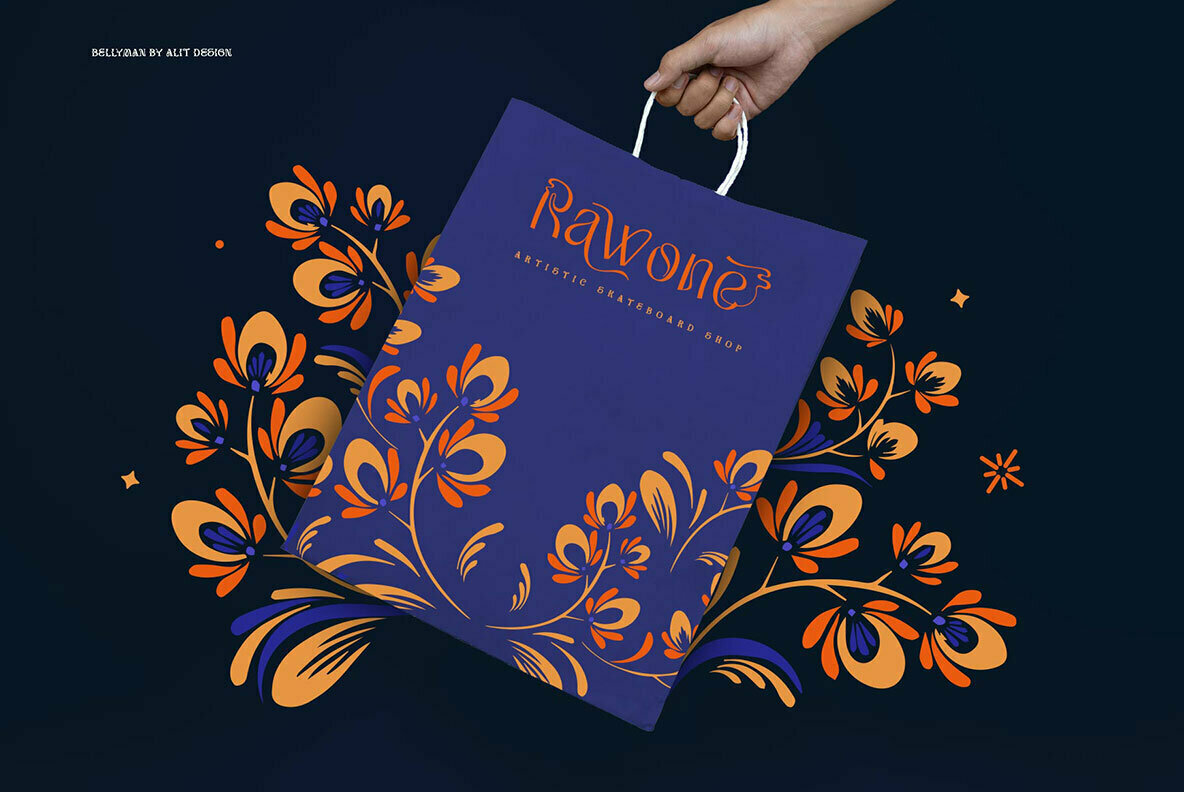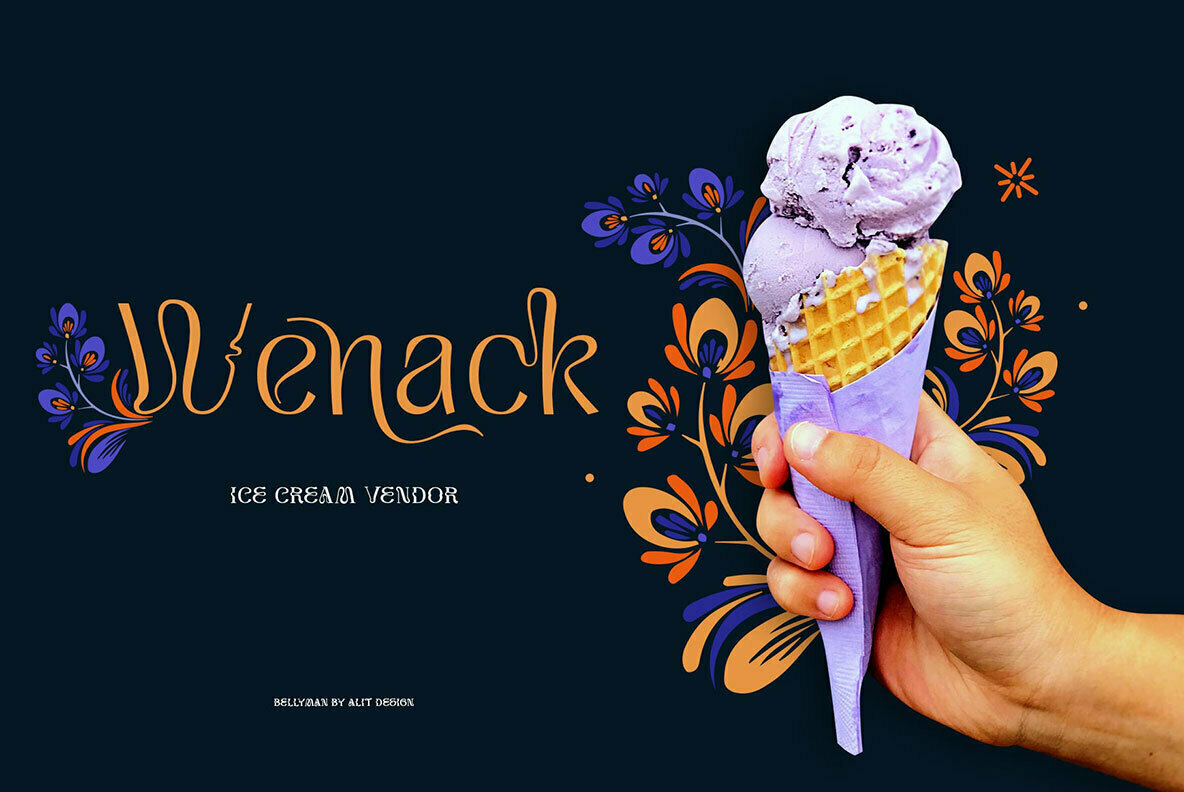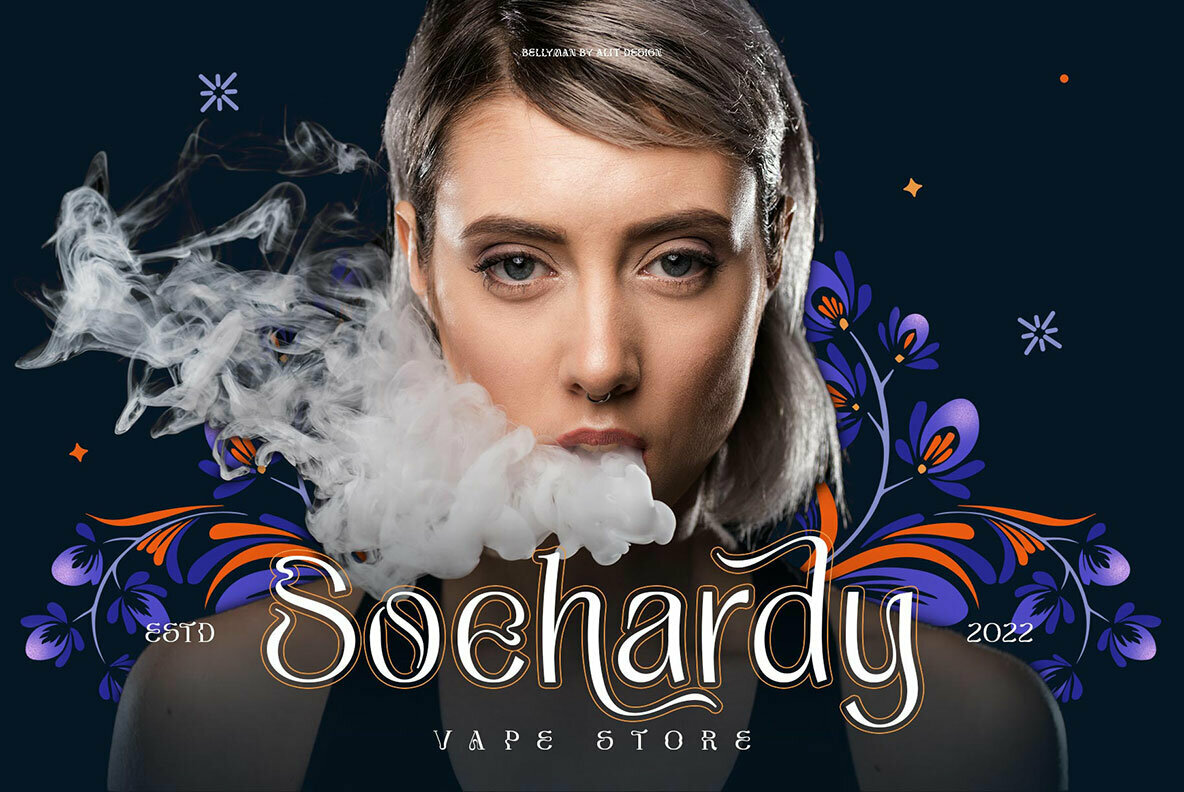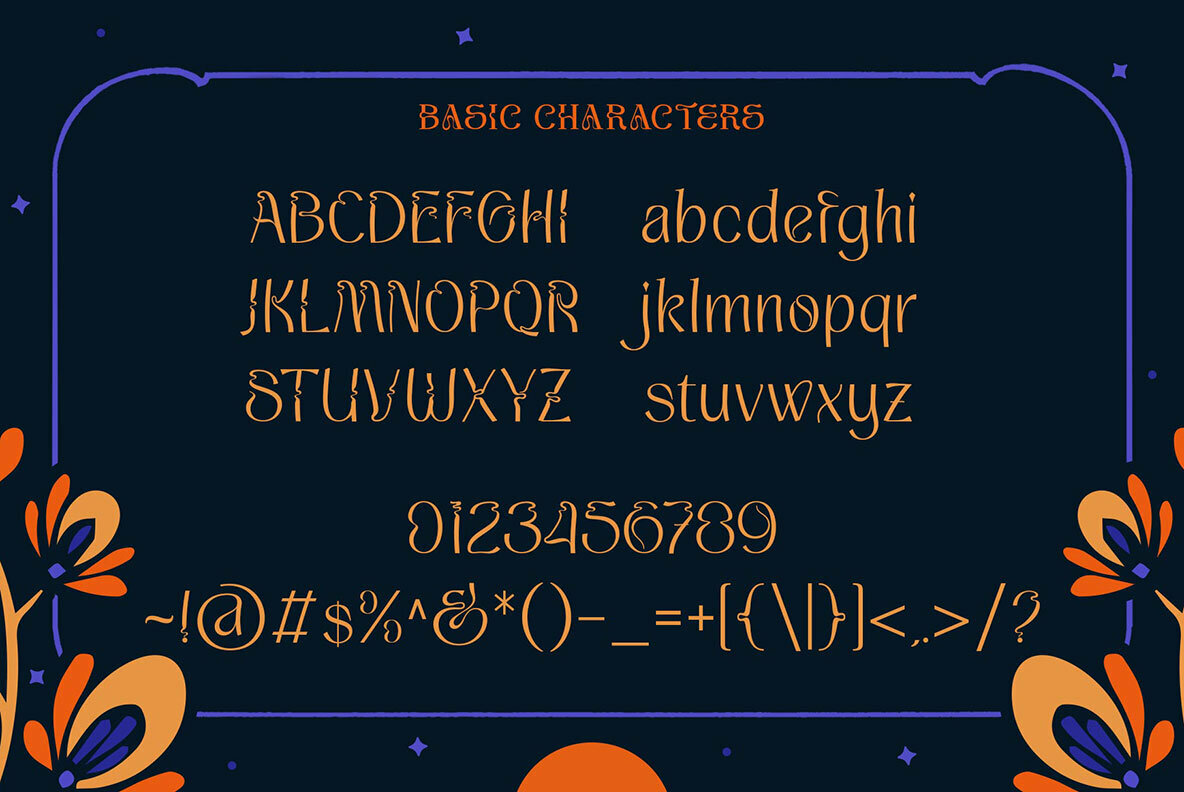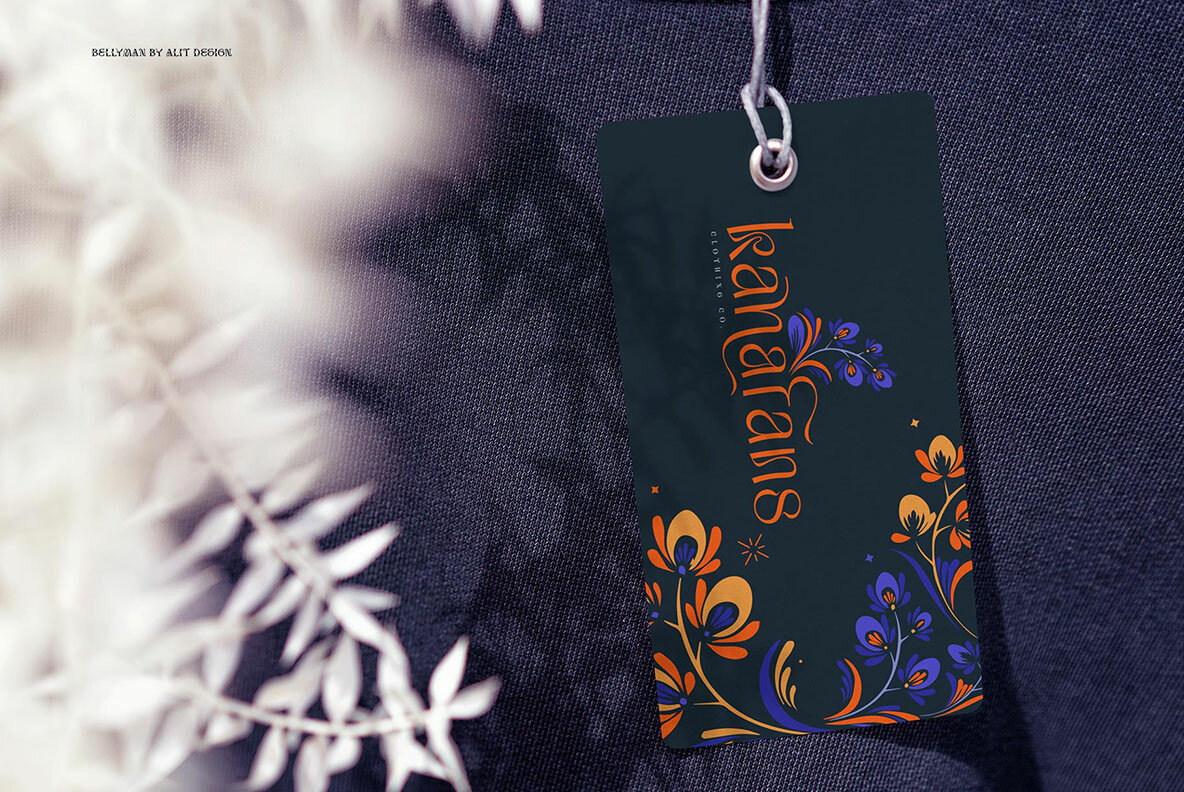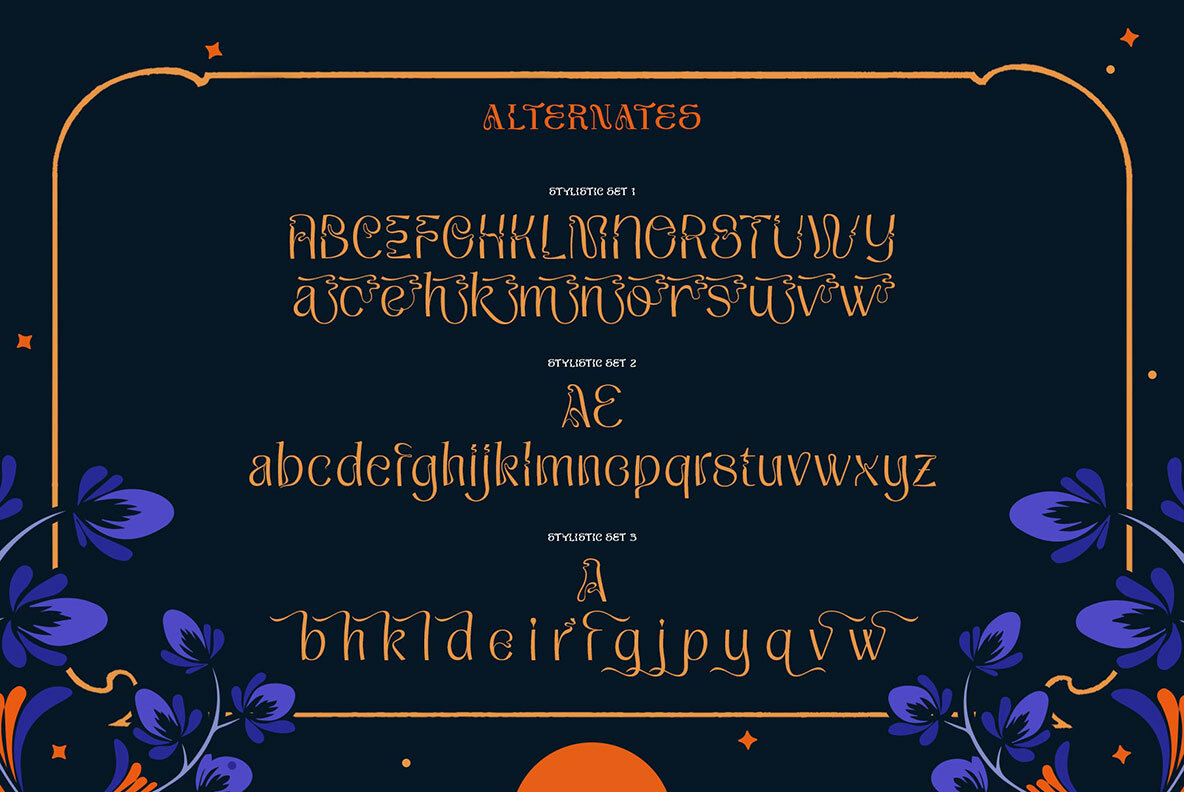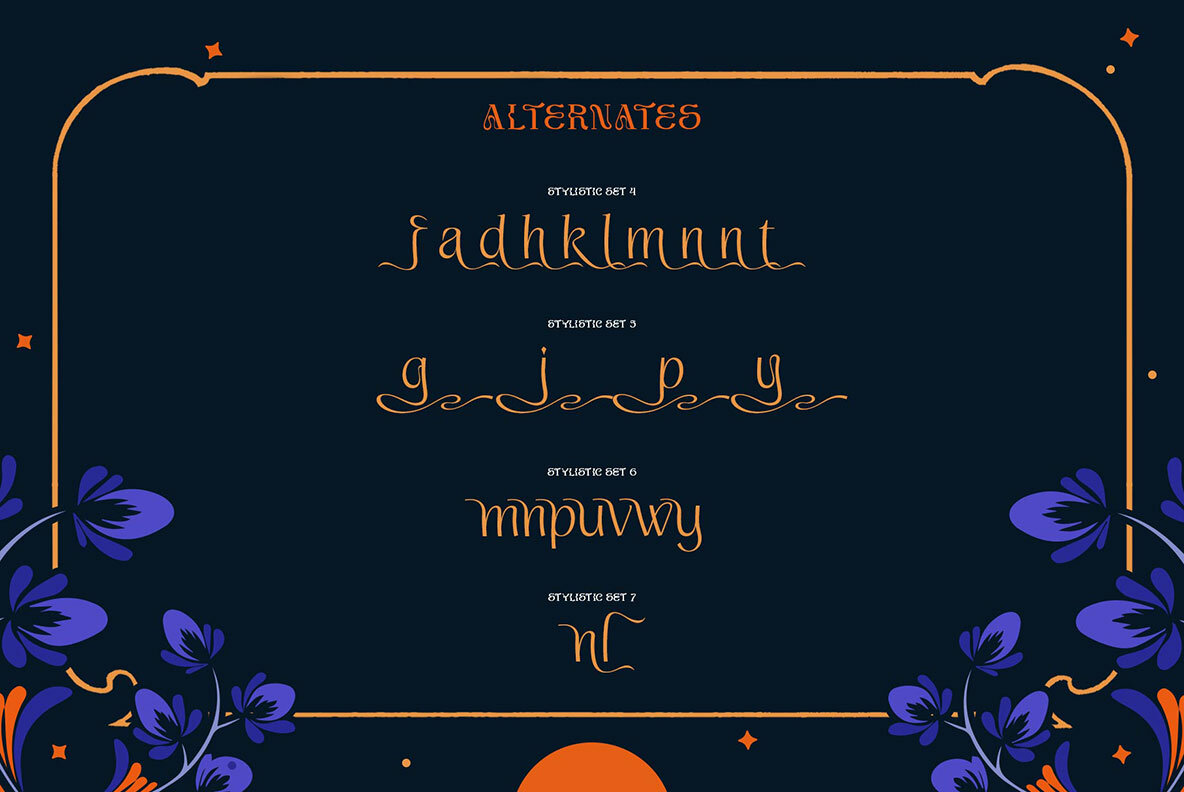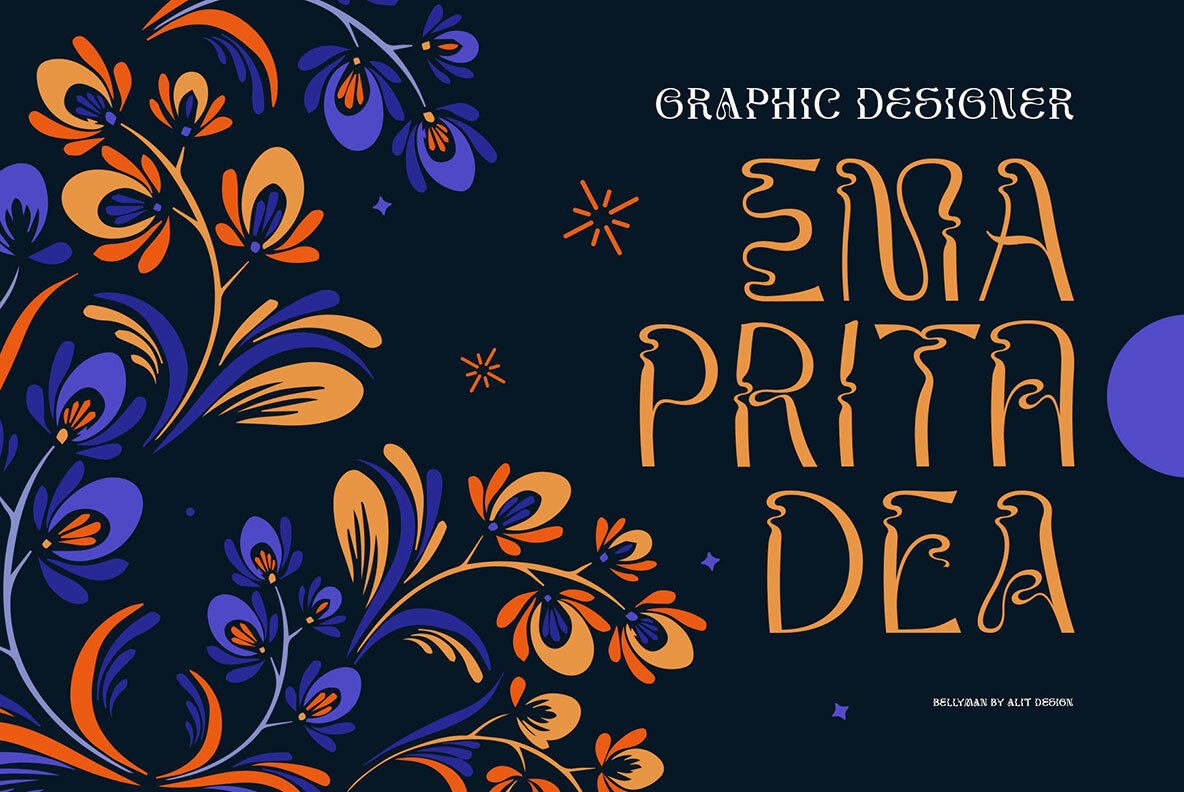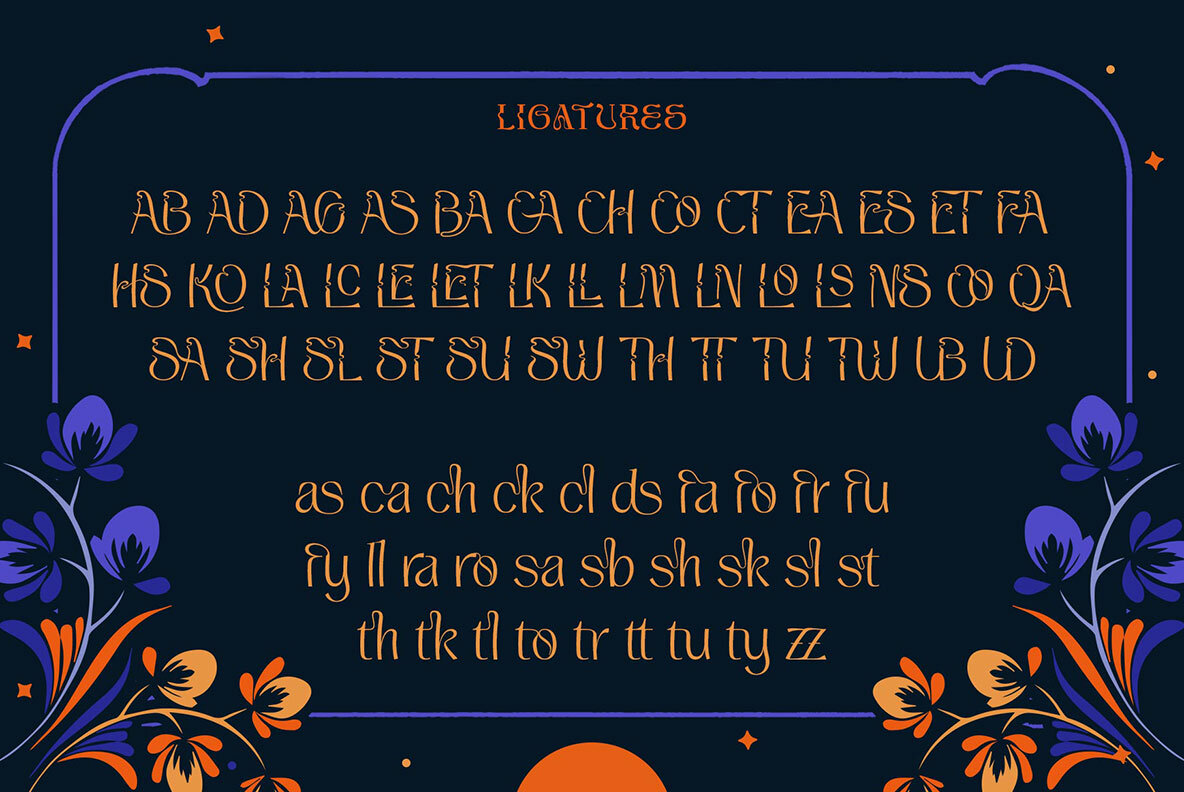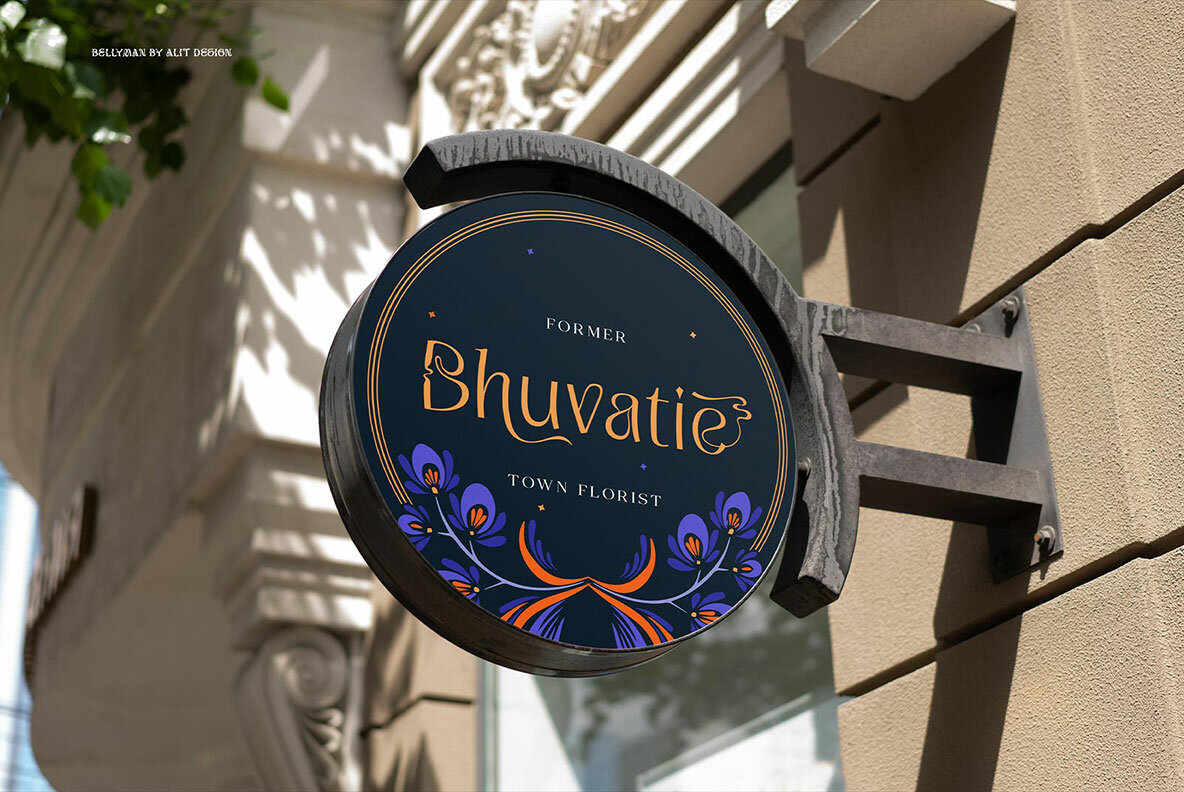
Bellyman Font
Bellyman Regular
The Bellyman is a unique and charming font that will give your design the perfect finishing touch. The serif style of this modern-looking typeface really adds to its charm, with swashes available for those who need them!
The Bellyman typeface contains 623 glyphs with many unique and interesting alternative options.